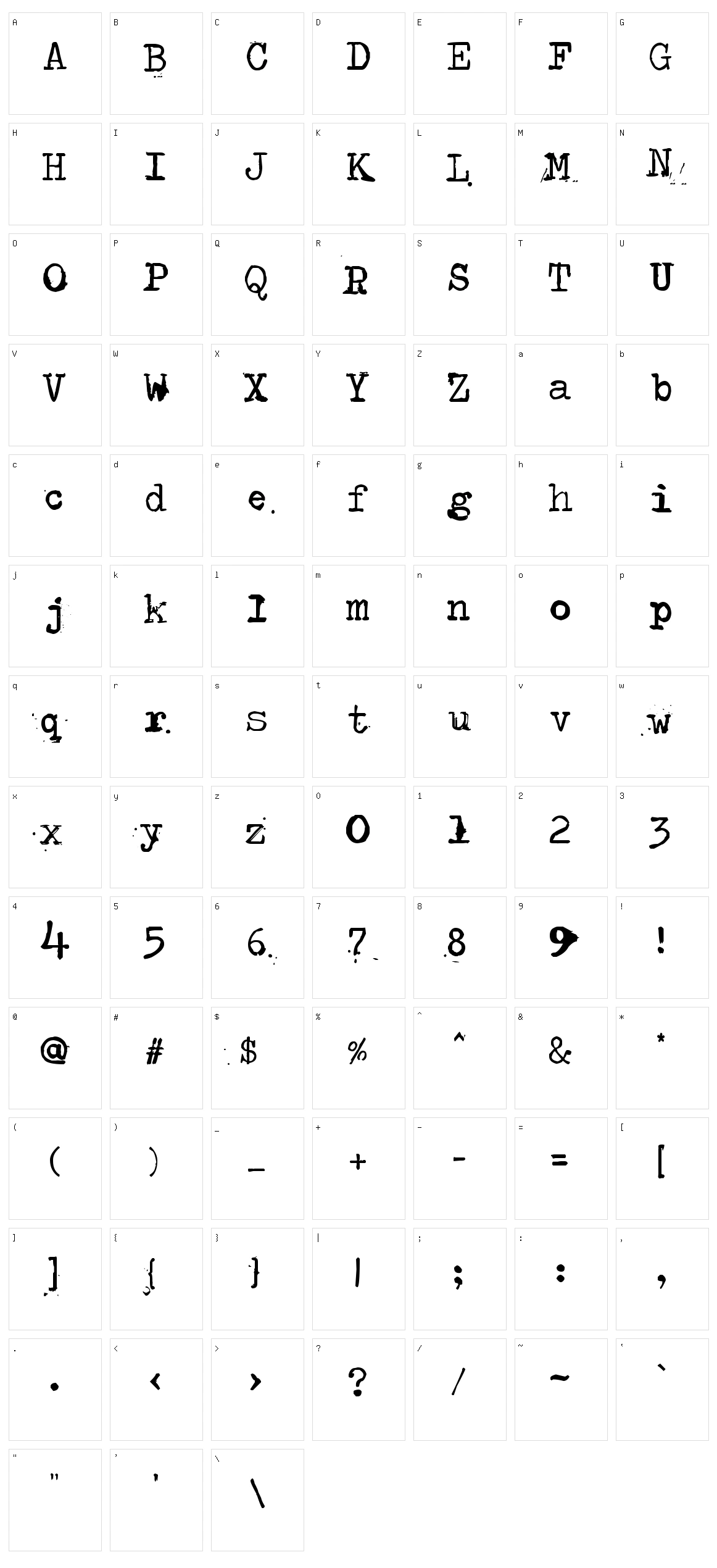
The free font Type-Ra is carefully designed by junkohanhero, showcasing a thoughtful balance of creativity and usability and falls under the Typewriter font style. When you download the ZIP file, it contains only 144.15 KB of font files, making it lightweight and quick to download. Please review the license details below to understand permitted usage and distribution rights. If license information is not available, we recommend using this font for personal projects only or contacting the author directly for commercial usage permissions.